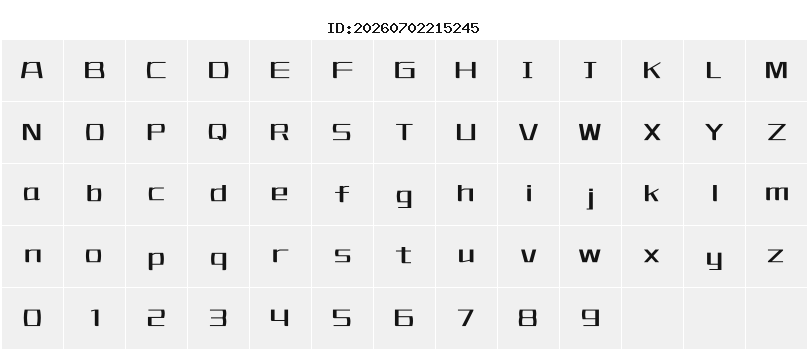
006-上首宽窄体 Preview
• Font Name: 006-上首宽窄体
• Full Font Name: 006-上首宽窄体
About 006-上首宽窄体.ttf
006-上首宽窄体.ttf is a modern, elegant sans-serif font designed for ultimate readability and visual harmony. Perfect for branding, headlines, web design, and print materials.